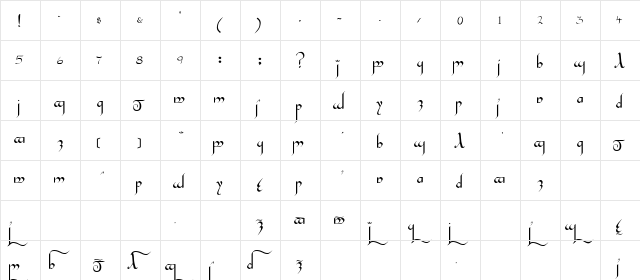
Tengwar-Gandalf Medium
Design Context for Tengwar-Gandalf Typeface
Tengwar-Gandalf is a composed and adaptable typeface that performs quietly and consistently across a wide range of design contexts.